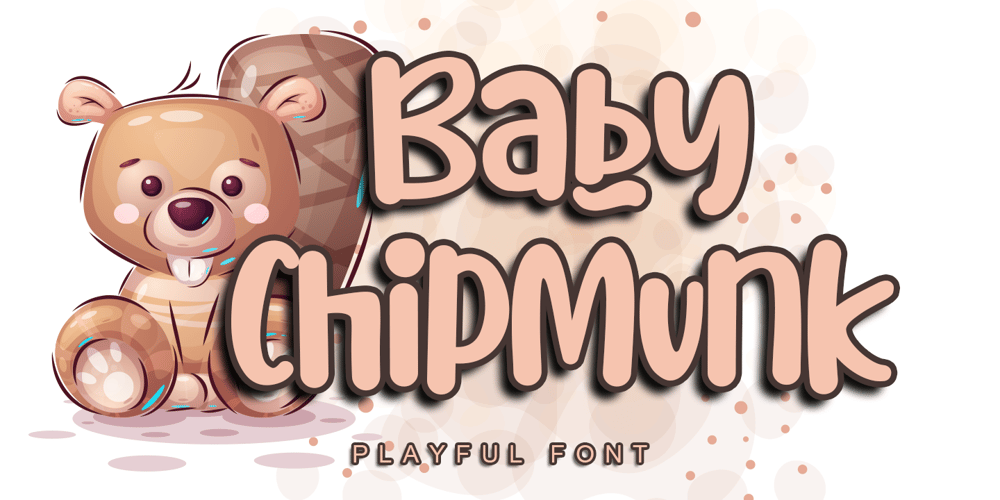
Baby Chipmunk Font Family was designed by Stefani Tri Rosa Setiati Christiana and published by Stefani Letter. Baby Chipmunk contains 1 styles and family package options. Baby Chipmunk is a cute and sweet handwritten font with an incredibly friendly feel. Get inspired by its playful feel! This font is PUA encoded which means you can access all of the cute glyphs and swashes with ease! It also features a wealth of special features including alternate glyphs and ligatures.